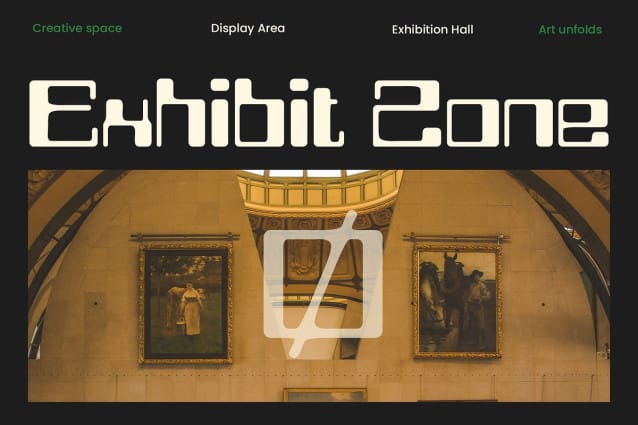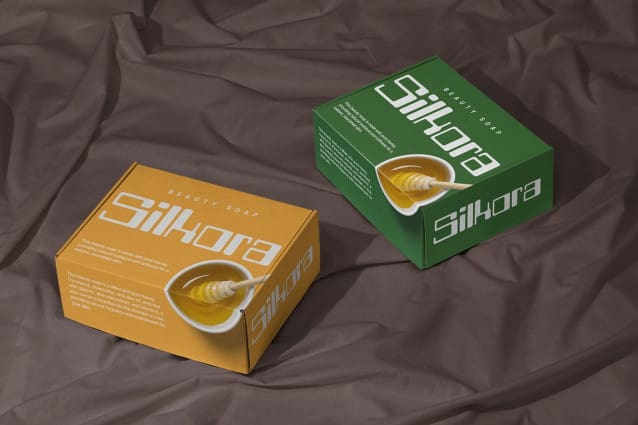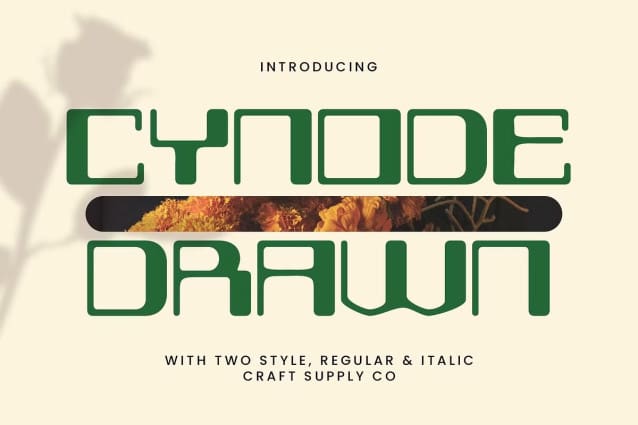
Cynode Drawn Font
Cynode Drawn Font is a bold, futuristic display font that seamlessly blends sleek, geometric shapes with an artistic hand-drawn effect. Its clean lines and cutting-edge design convey a sense of modernity and high-tech appeal, while the hand-drawn elements add an organic, personalized touch that sets it apart from typical digital fonts.
Perfect Fusion of Innovation and Artistry This typeface combines the precision of geometric forms with the unique charm of handcrafted detailing, offering a dynamic contrast between technological sophistication and creative expression. The result is a font that exudes both a forward-thinking aesthetic and a warm, artistic feel.
Ideal for Tech Branding and Digital Projects Cynode Drawn is perfectly suited for tech branding, digital interfaces, and modern creative projects that need a futuristic edge with a hint of artistry. Whether you’re creating a website, promotional material, or tech-driven design, this font offers a distinctive, innovative look that will stand out in any modern project.
Bold, Modern, and Artistic Cynode Drawn is designed for projects that seek to make a statement with a modern, forward-looking style, while maintaining an element of human creativity. With its striking geometric forms and artistic hand-drawn accents, this font brings a fresh, innovative twist to futuristic design, perfect for brands and digital designs pushing boundaries.